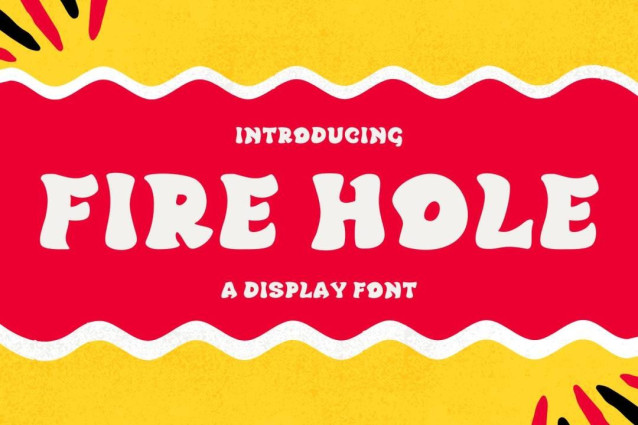
Fire Hole Font
Fire Hole Font is a chunky, comic, and cartoon display font. With its neat and joyful personality, this font will enhance any project you wish to create!